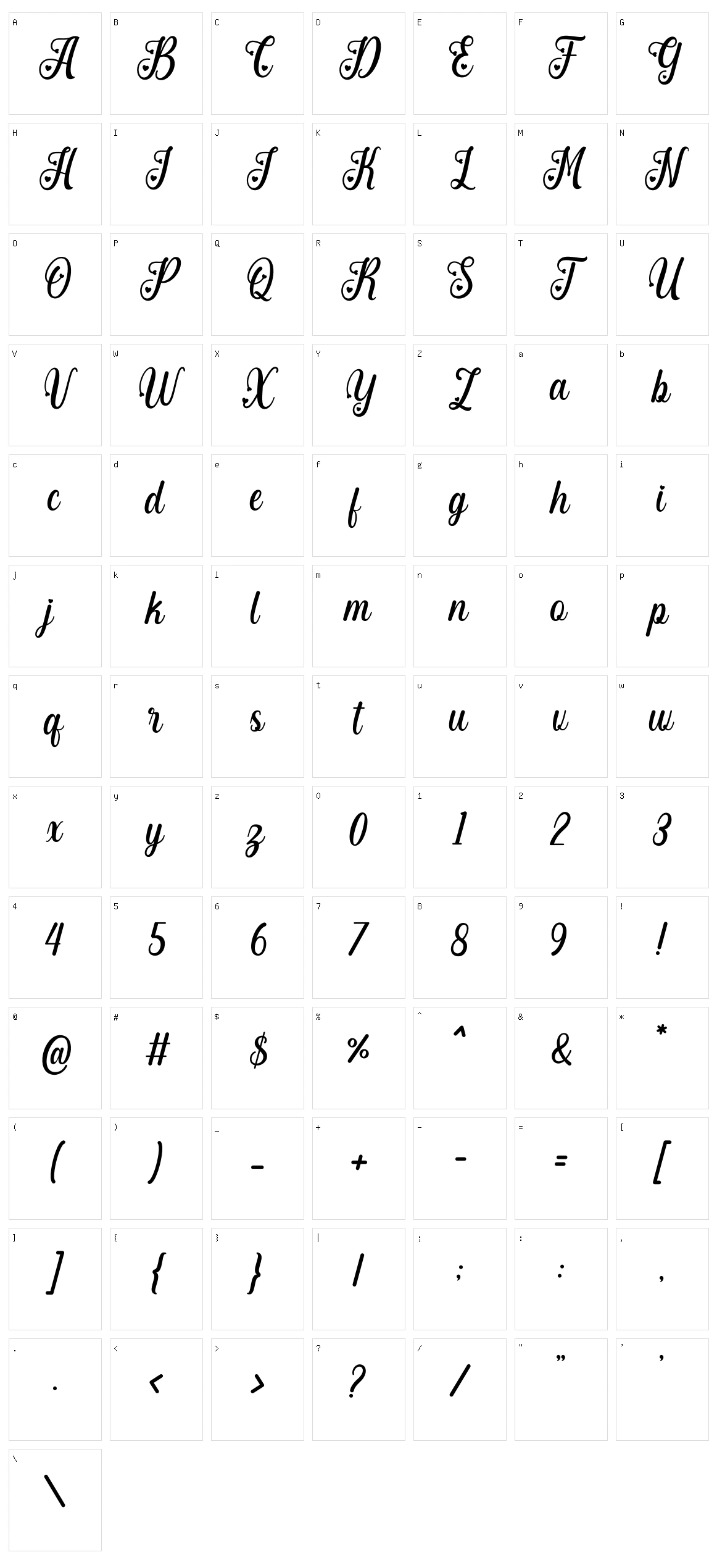
The free font Angelia Beauty is carefully designed by Hoperative, showcasing a thoughtful balance of creativity and usability and falls under the Valentine font style. When you download the ZIP file, it contains only 21.2 KB of font files, making it lightweight and quick to download. Please review the license details below to understand permitted usage and distribution rights. If license information is not available, we recommend using this font for personal projects only or contacting the author directly for commercial usage permissions.